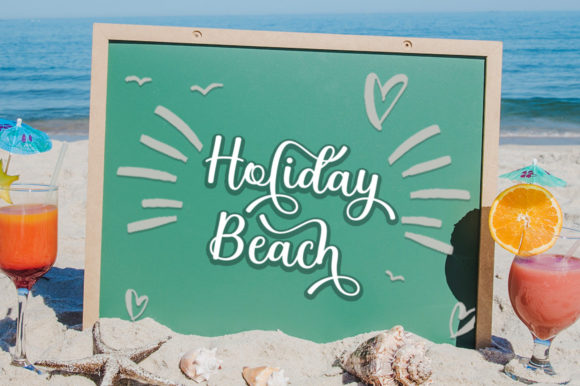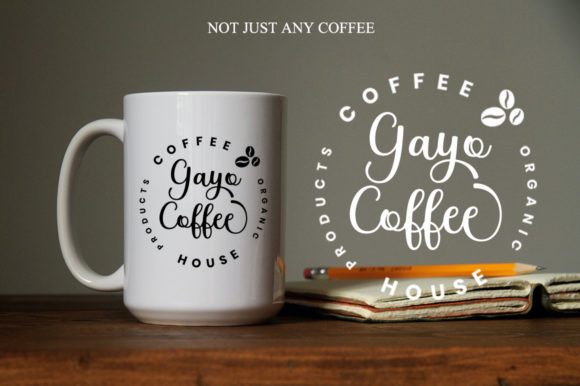
Nella Font
db-ku.com - Script & Handwritten -- Nella is a gorgeous handwritten font that will make your work stand out through its elegant and curvy lines. It is perfect for product packaging, branding project, magazine covers, social media, wedding, or just used to express words above the background.